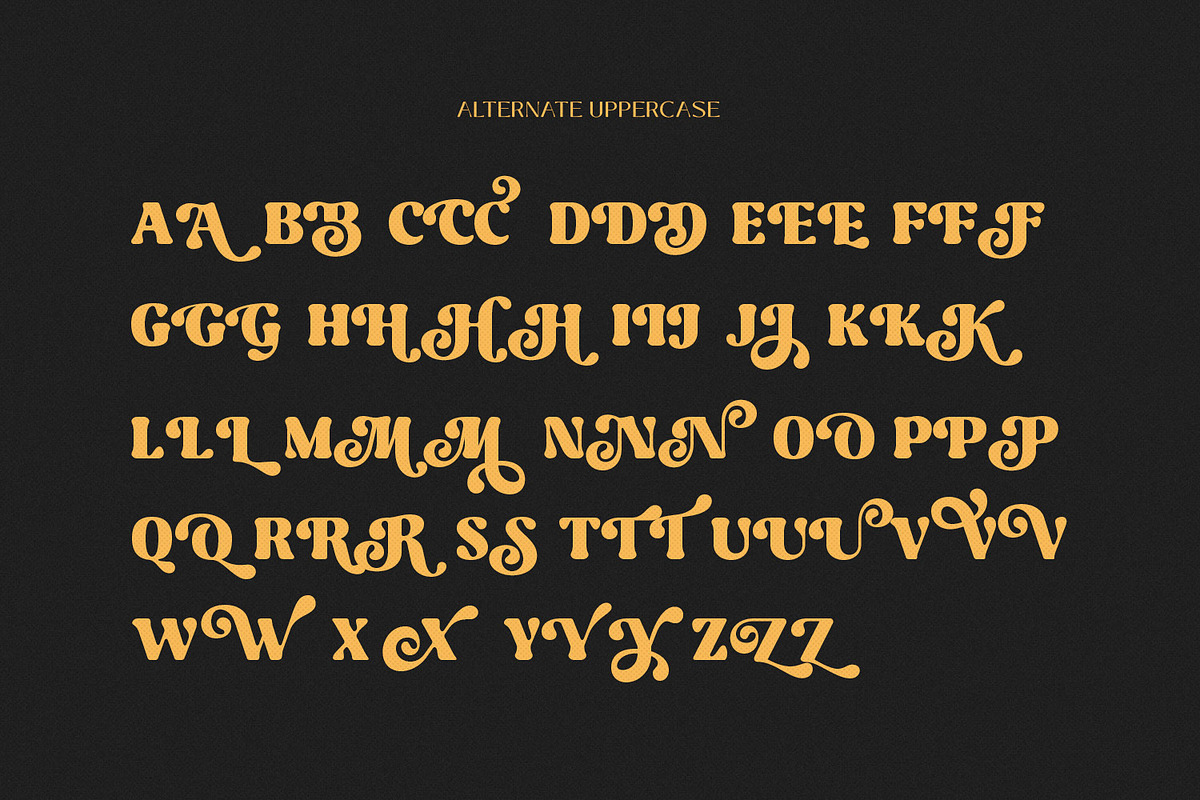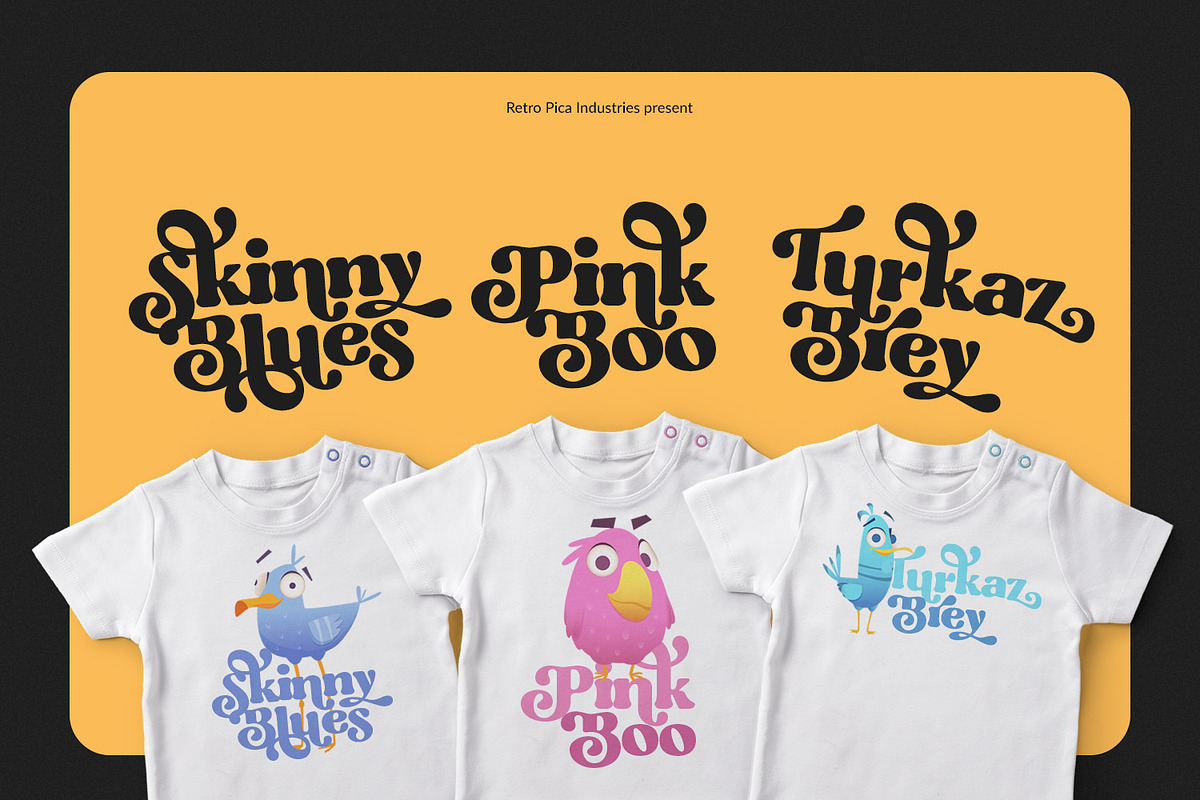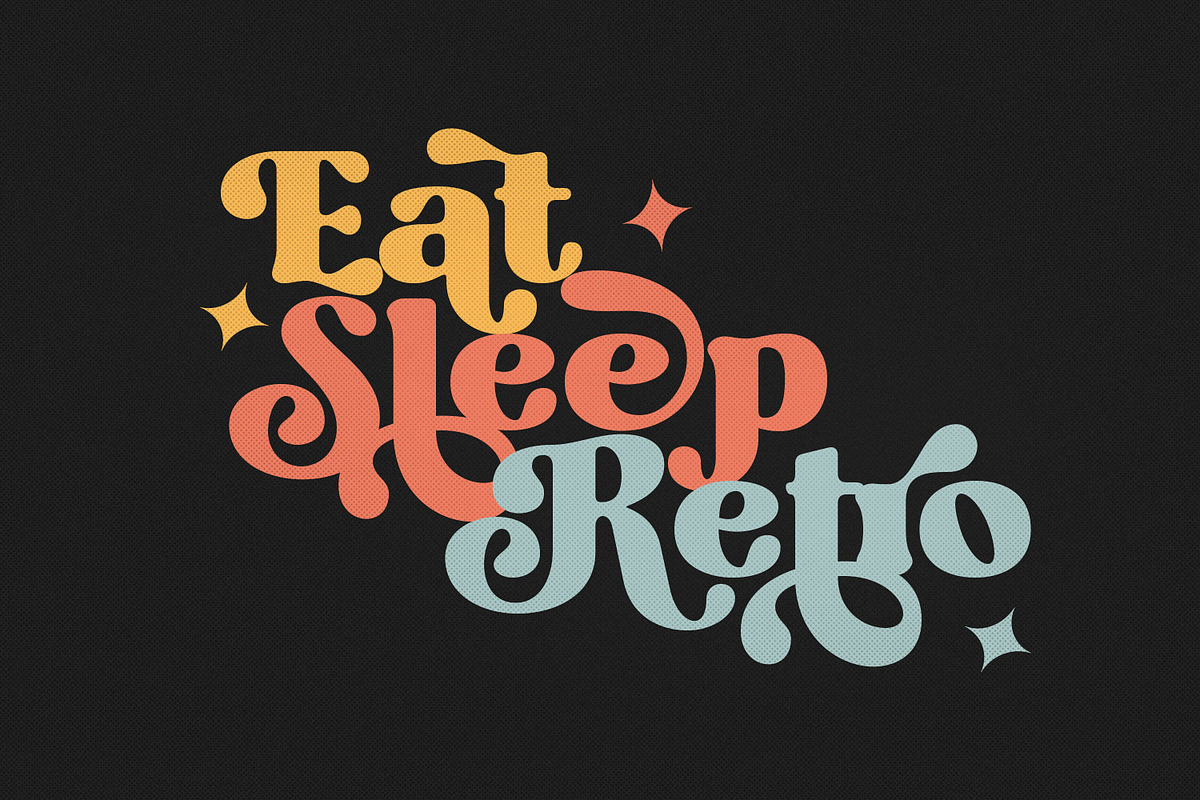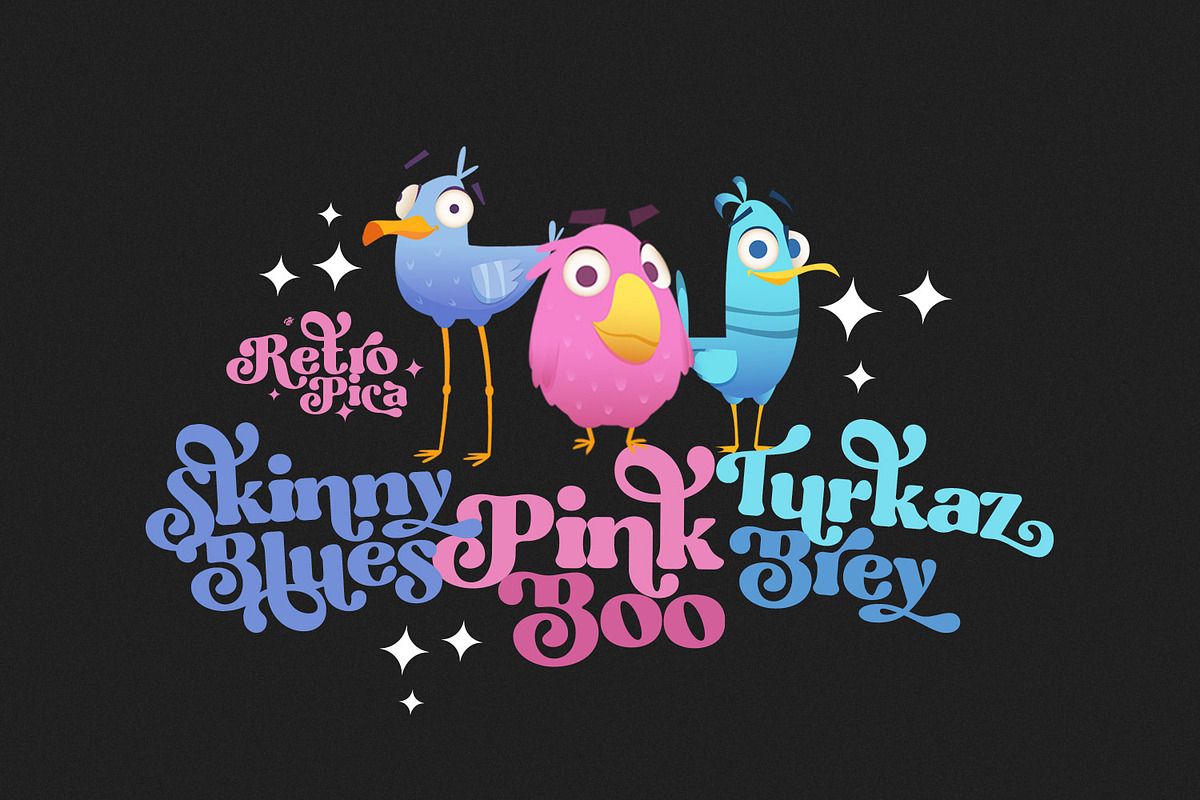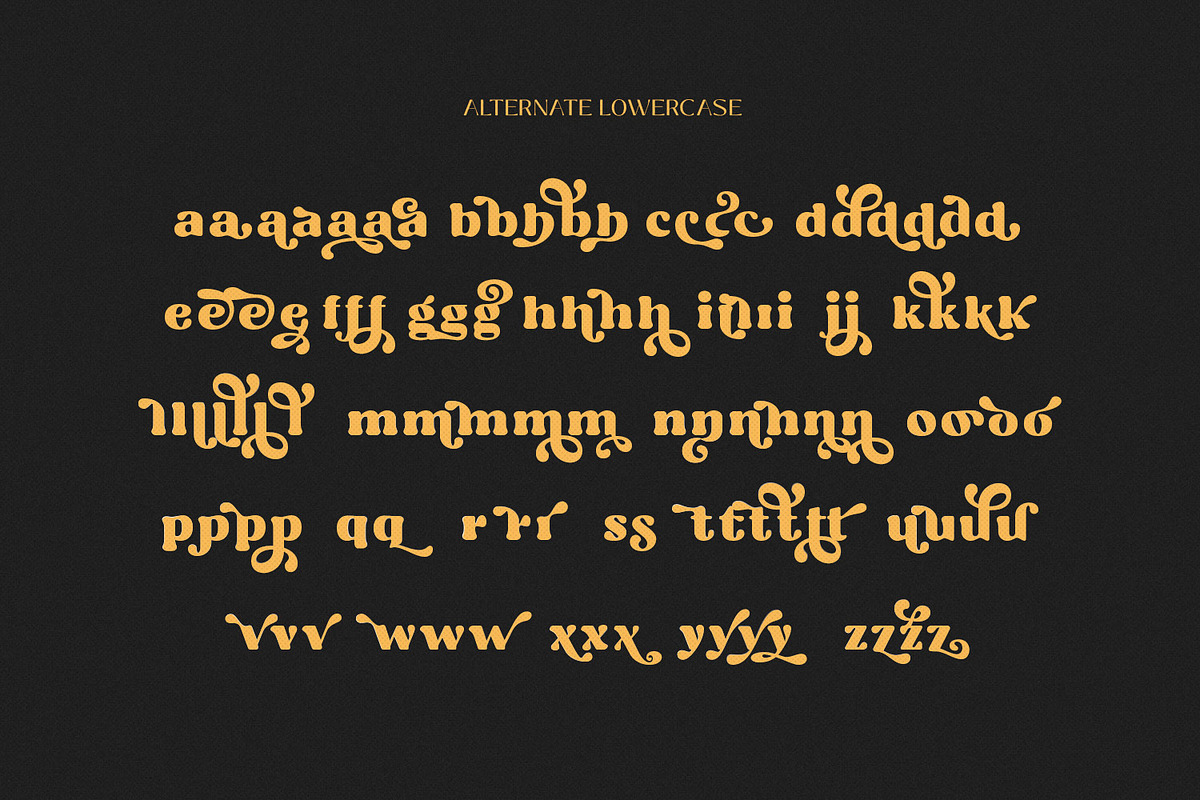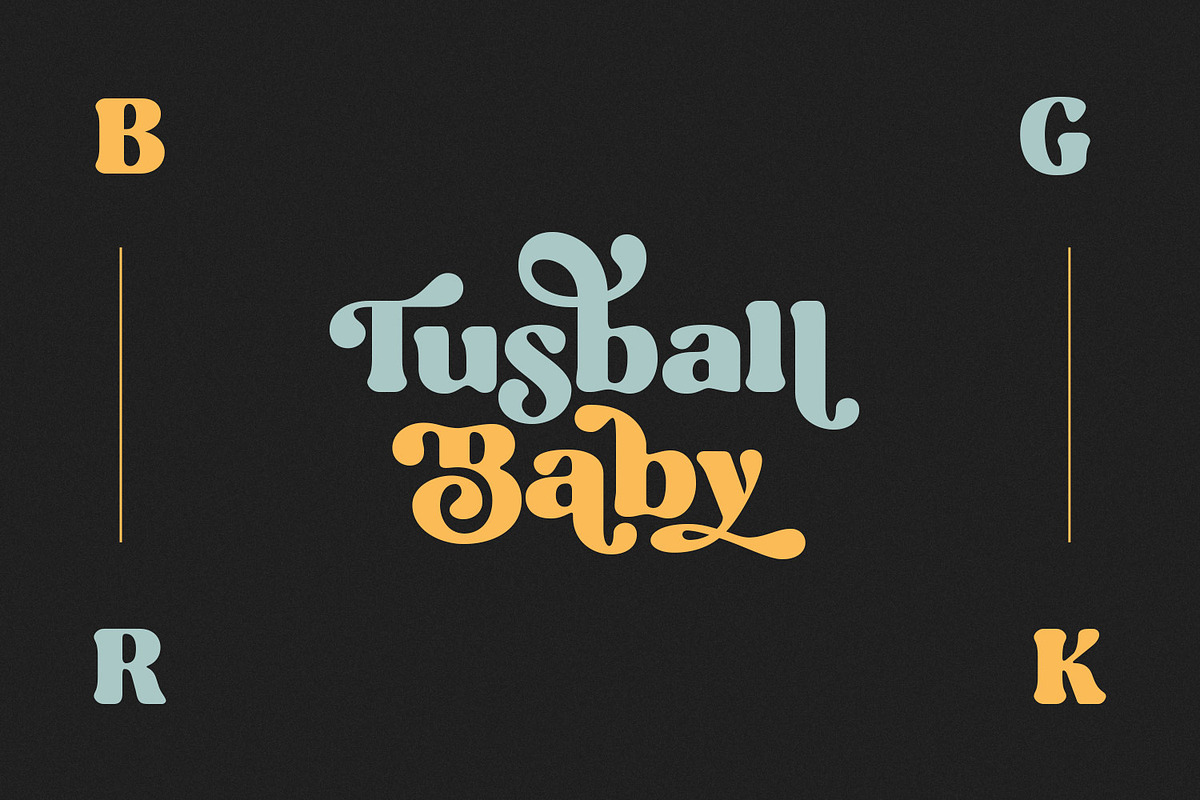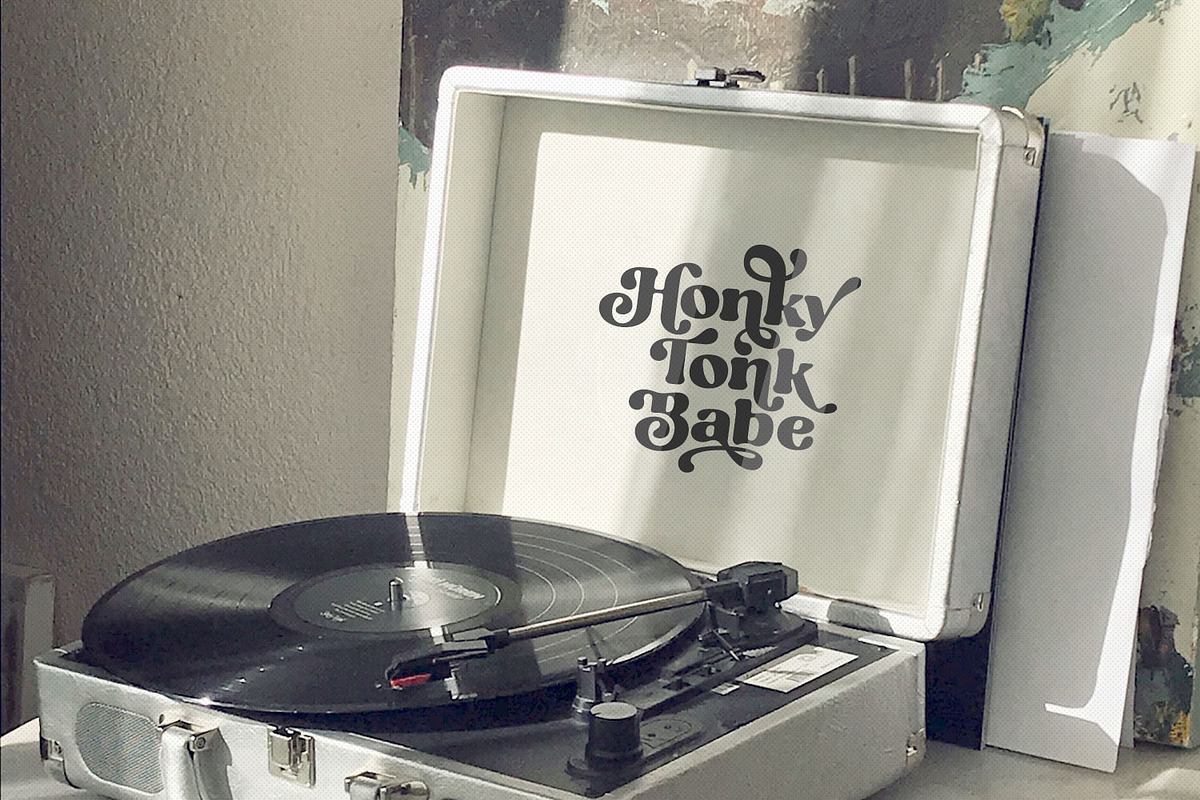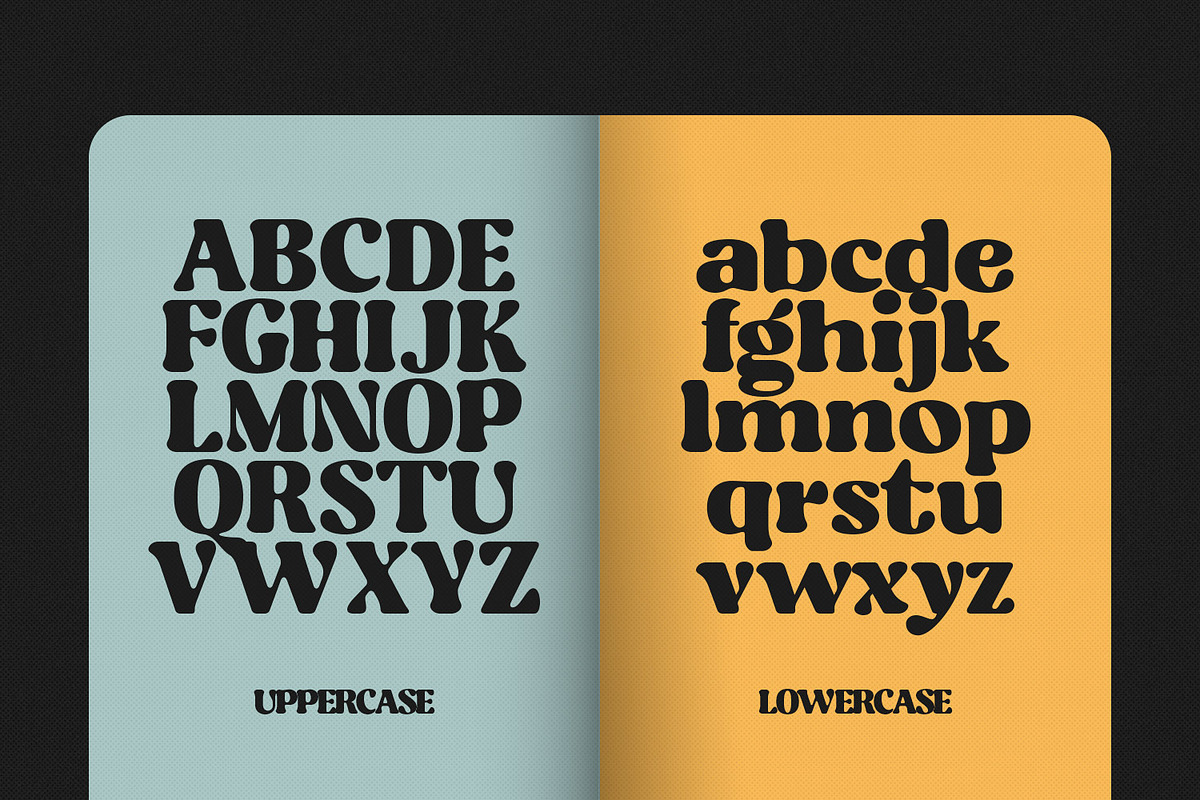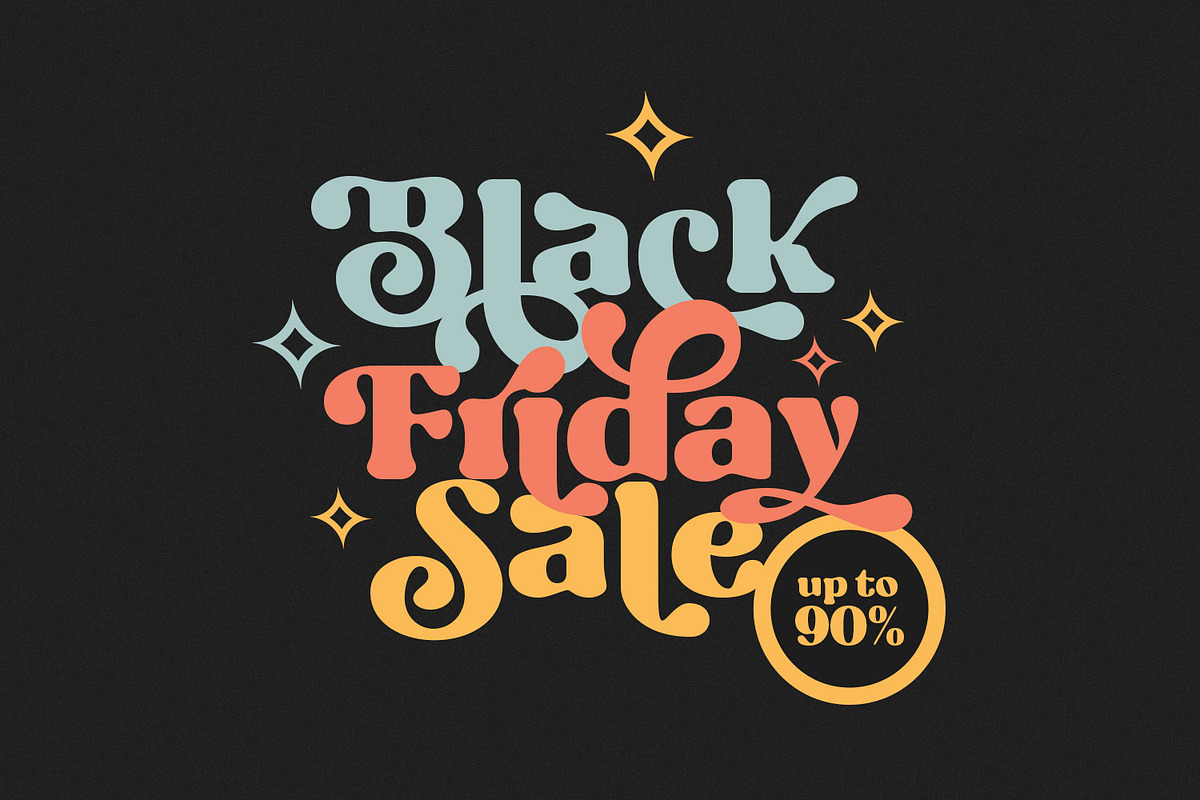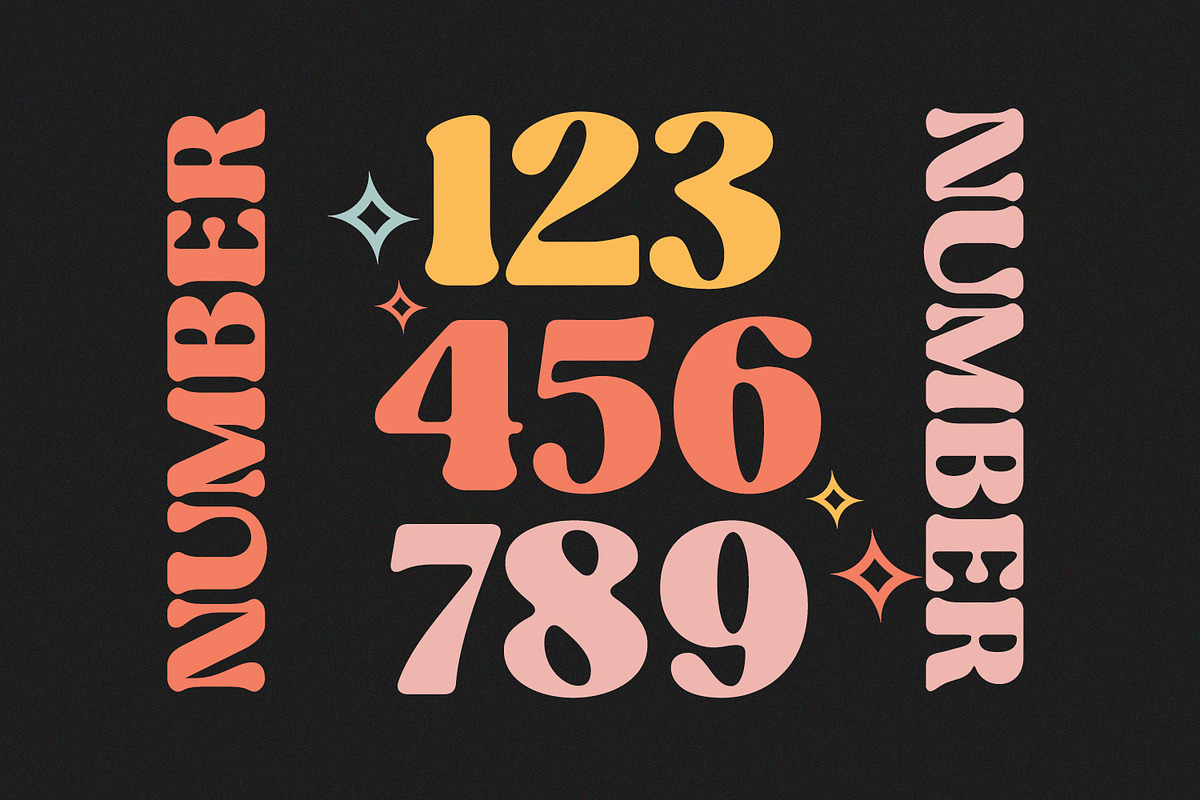
Retro Pica - Bold Decorative Serif
Introducing Retro Pica, a bold and fun display font. Retro Pica features a bold retro style with many alternate characters ideal for design, such as posters, t-shirts, branding, logos, etc.
Retro Pica Lite, with this style, we replaced the uppercase character with the alternate version for those who use applications that do not support open-type features.